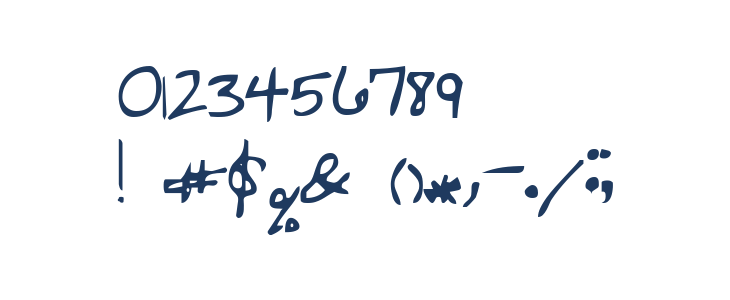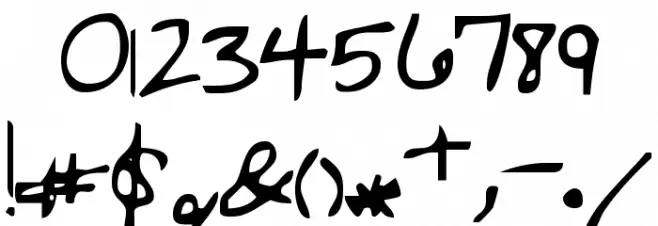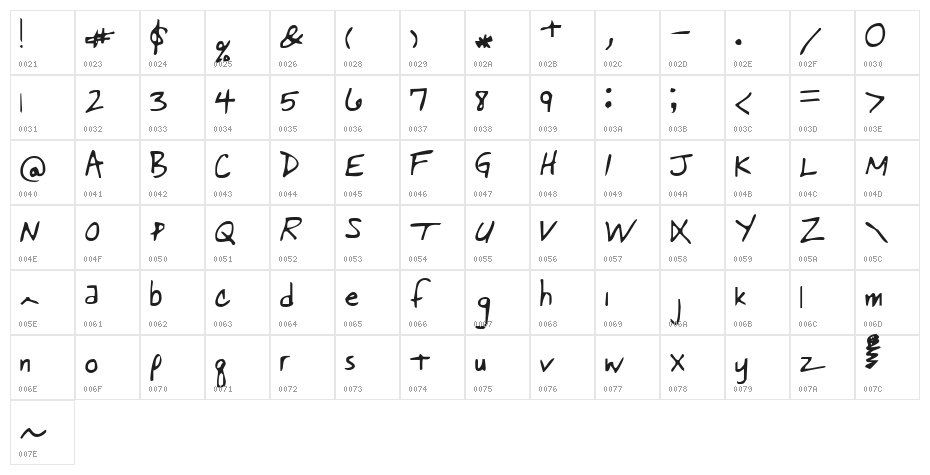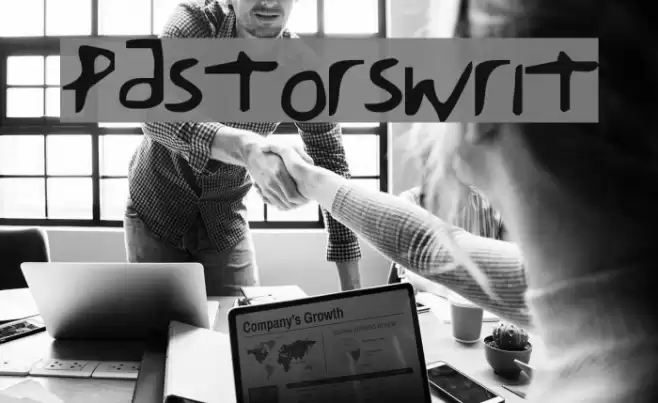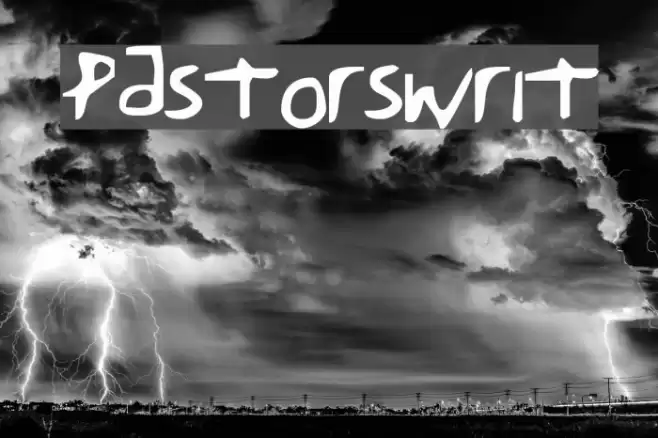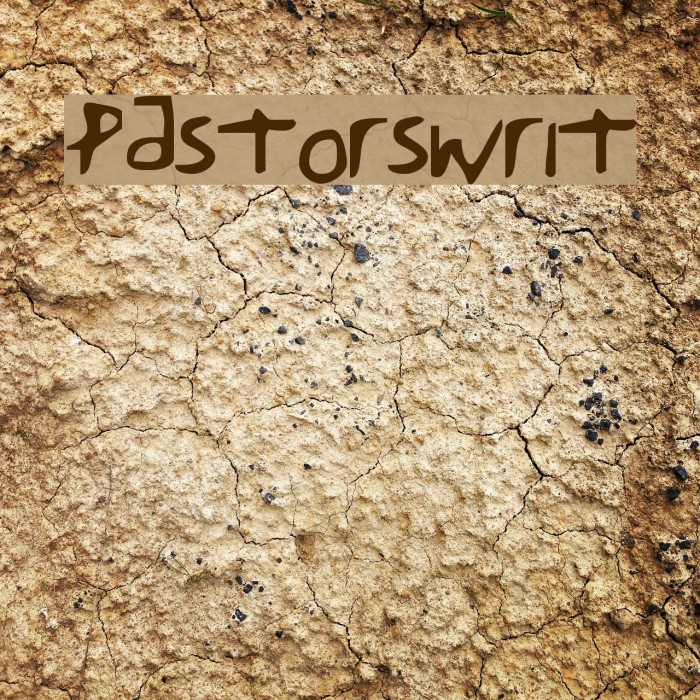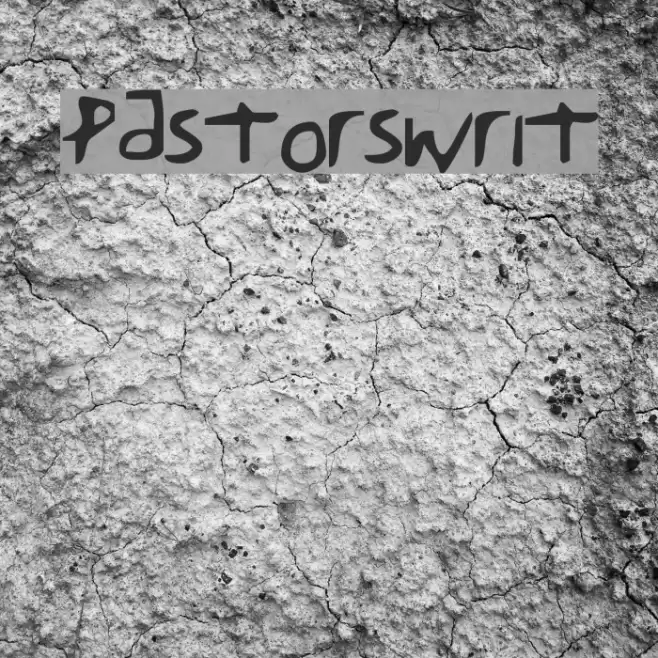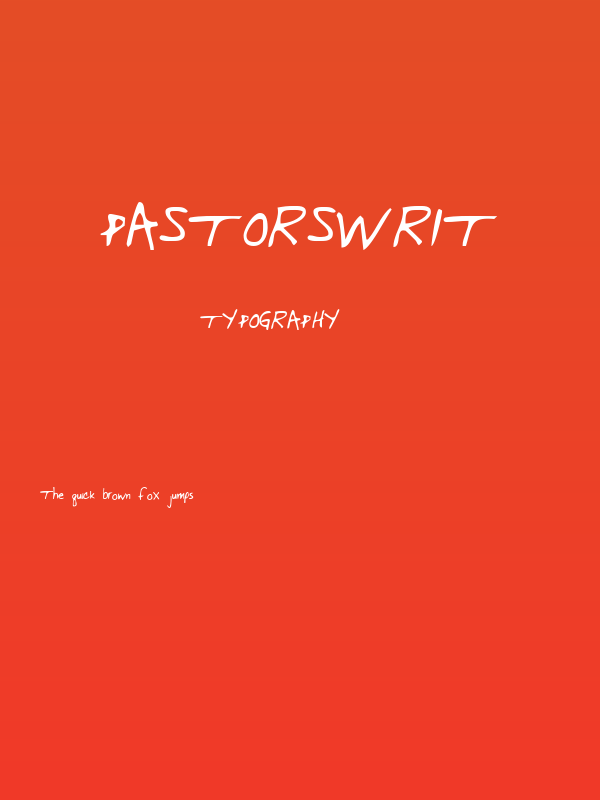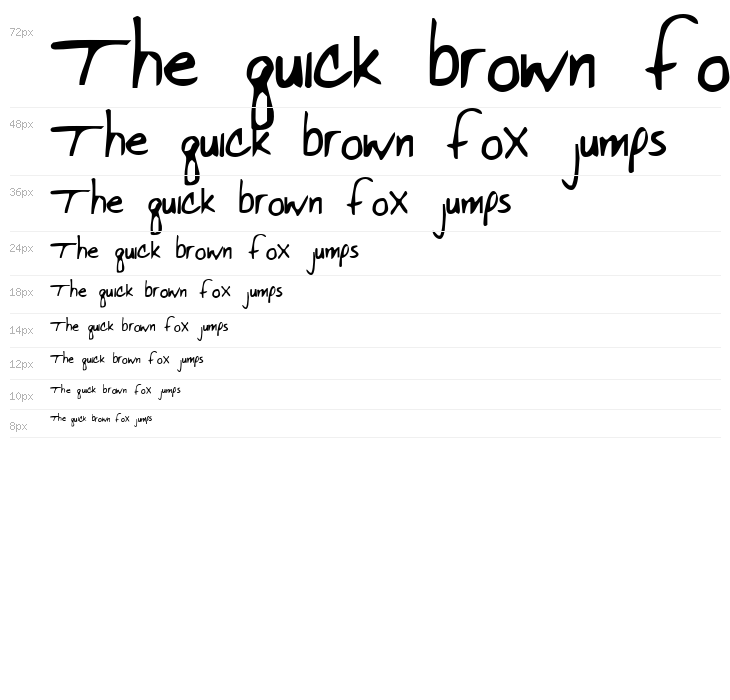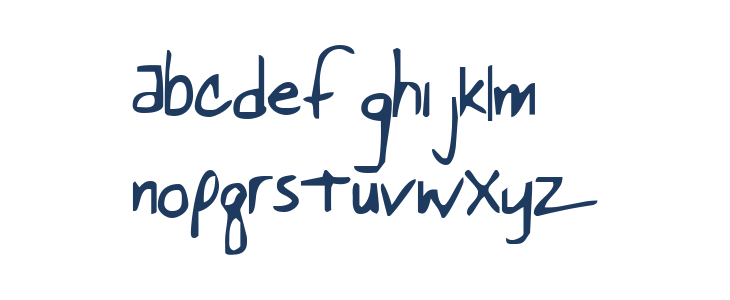
Pastorswrit Font
Pastorswrit Description
This font exudes a casual, handwritten style, characterized by its playful and informal appearance. The letters are slightly slanted, with varying stroke thickness that adds a dynamic and lively feel. The uppercase and lowercase letters maintain a consistent flow, while the numerals and special characters complement the overall aesthetic. The strokes are smooth yet irregular, mimicking the natural imperfections of handwriting, which adds to its charm. This font is ideal for projects that require a personal touch, conveying warmth and approachability.
| Proposed Projects | Perfect for greeting cards, personal notes, informal invitations, and creative projects that require a personal touch. |